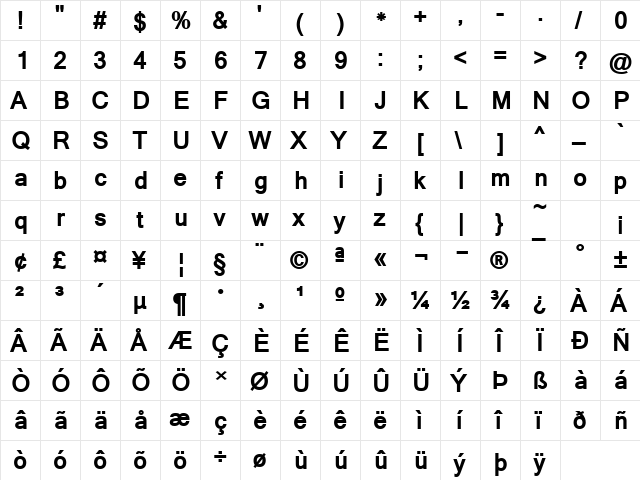
Mangal Bold
| Designer | Raghunath Joshi |
Design Context for Mangal Typeface
Mangal offers clean, dependable letterforms without strong stylistic allegiance, making it a practical choice for designers who need flexibility. The heavy weight commands attention and anchors typographic hierarchies.